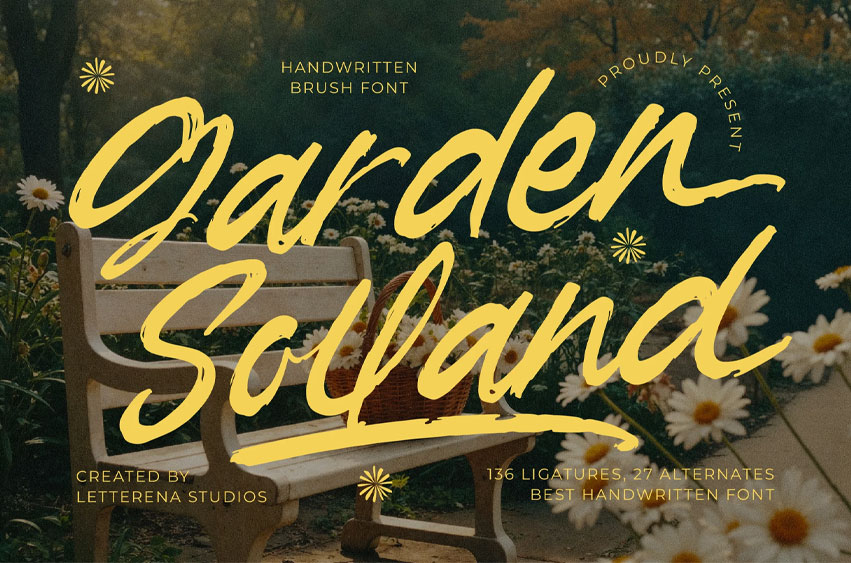
Garden Solland Font
Garden Solland Font is a handwritten brush font that beautifully captures natural movement and organic charm. With 136 ligatures and 27 alternates, this typeface brings a warm, personal touch to your designs, perfect for invitations, logos, packaging, social media posts, and handmade branding.
Its smooth brush strokes and natural flow make Garden Solland a versatile choice for creative projects that need an authentic, handcrafted feel.